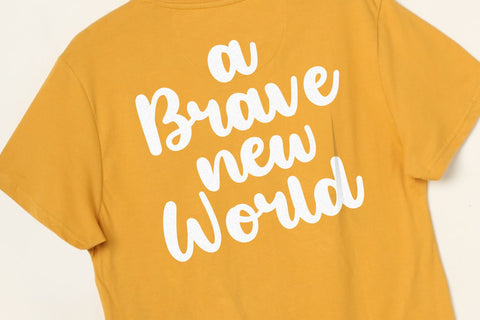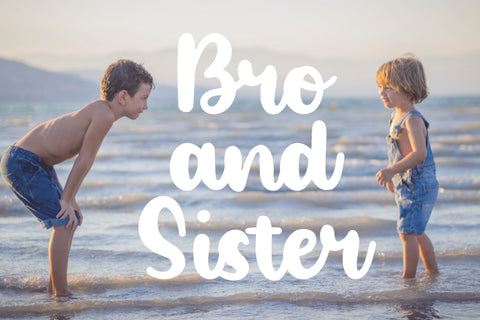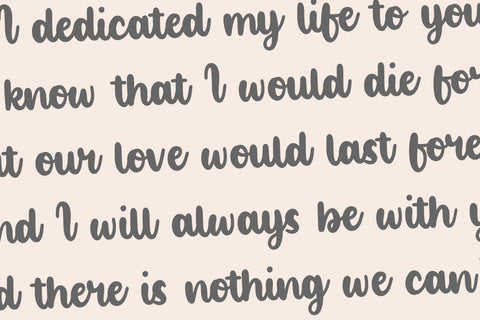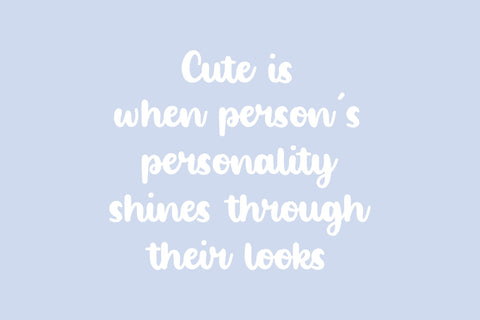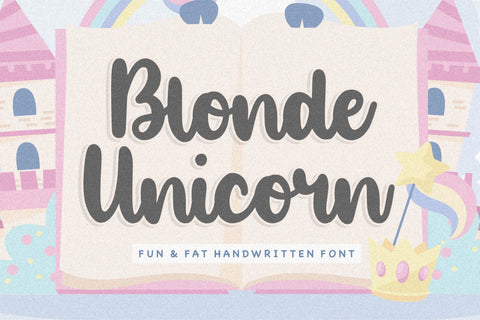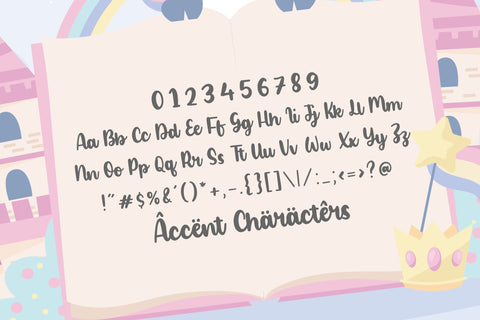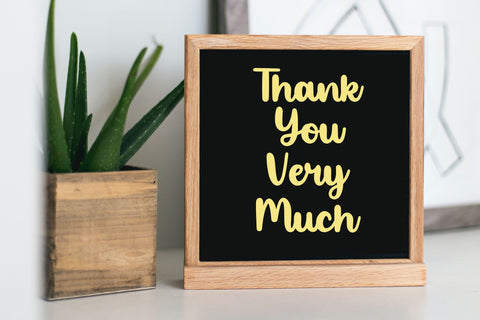
Blonde Unicorn Fun & Fat Handwritten Font
Proudly Present, Blonde Unicorn Font.
Blonde Unicorn is a Fun & Fat Handwritten Font.
Blonde Unicorn is perfect for product packaging, branding project, megazine, social media, wedding, or just used to express words above the background.